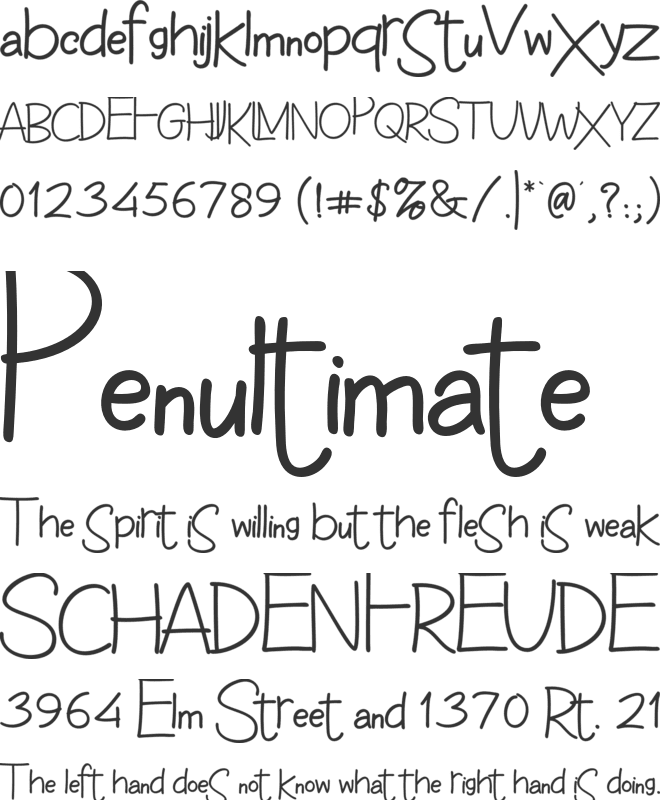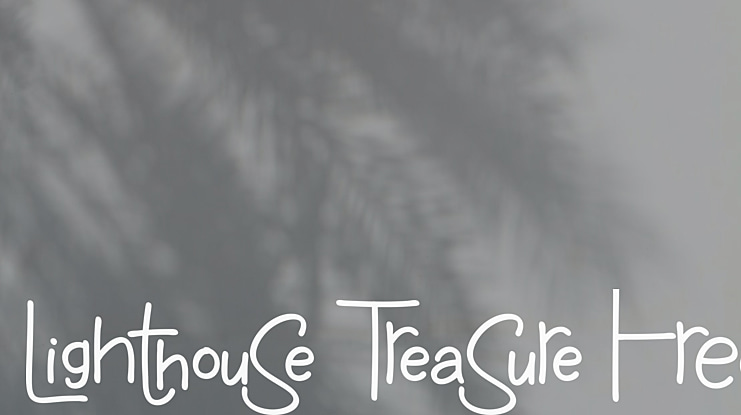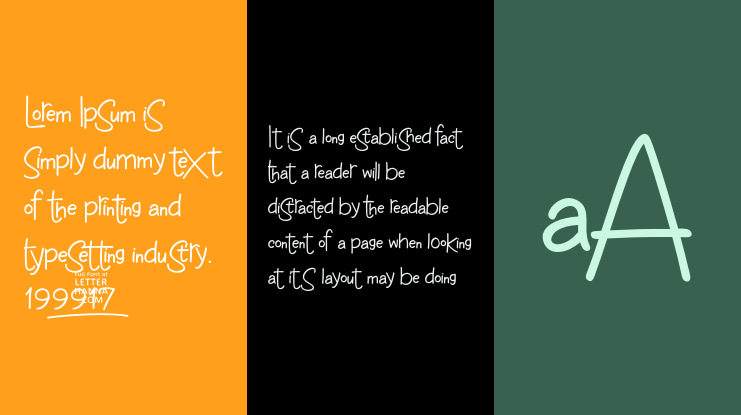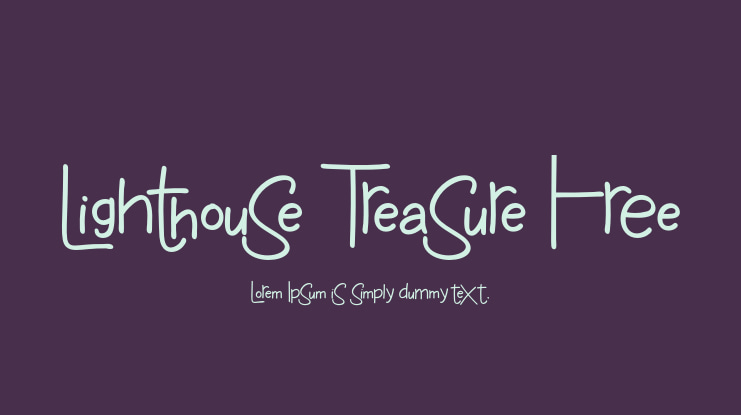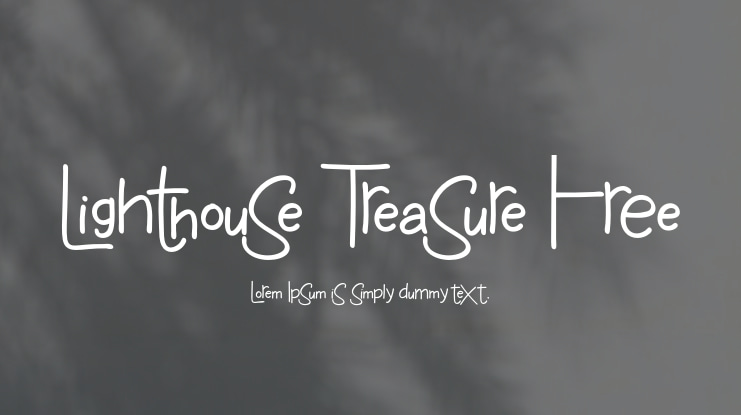
"Lighthouse Treasure" is an enchanting handwritten sans-serif font designed with a playful and informal touch, making it an ideal choice for projects with a kids' theme. This font combines the relaxed charm of informal handwriting with a touch of whimsy, perfect for capturing the imagination of young audiences. Whether you're working on children's book covers, playful posters, or vibrant educational materials, "Lighthouse Treasure" adds a sense of fun and approachability to your designs. With its friendly and casual style, this font is sure to delight and engage children while conveying a sense of creativity and adventure.